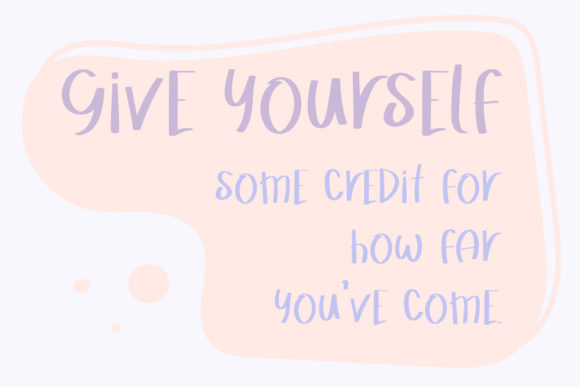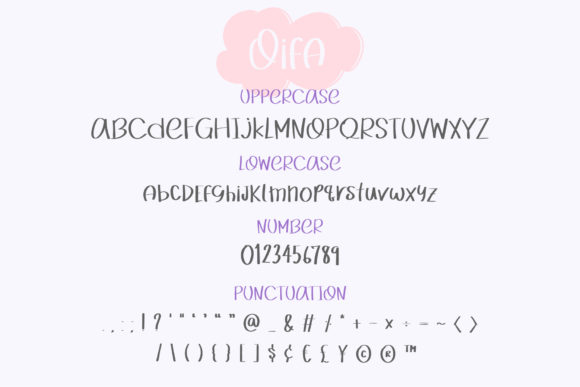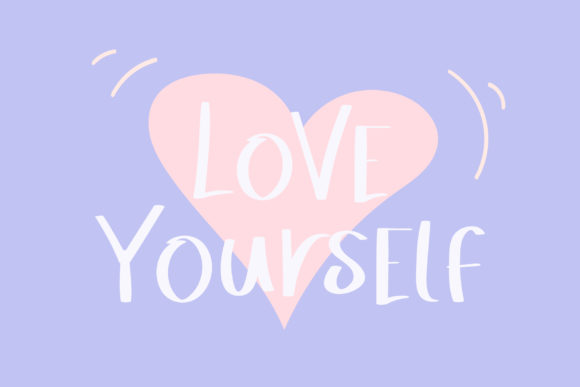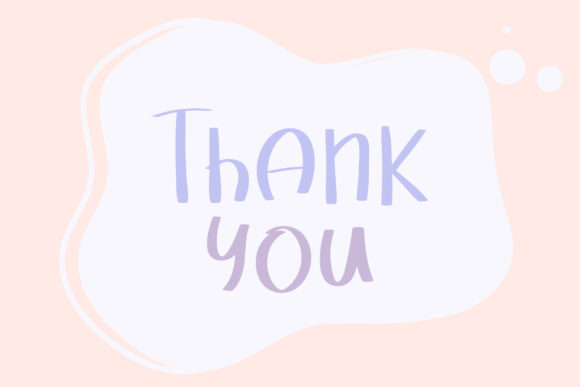
Introduction to Oifa Font
Have you ever found yourself staring at a blank page, waiting for the perfect font to bring your creative project to life? It’s that moment when the right typography can make all the difference. For designers, the search for the perfect font is a never-ending journey, and that’s where the Oifa Font comes in – a cute and quirky handwritten font that’s sure to add a personal touch to any design.
With its relaxed and friendly vibe, the Oifa Font is a valuable addition to any designer’s toolkit. Whether you’re working on a project with a transparent background or need a high-quality font for a free download, the Oifa Font is an excellent choice. Its versatility makes it a great design resource for a wide range of creative projects, from invitations to social media graphics.
- Unique, handcrafted design with intricate details, making it an ideal choice for creative projects that require a touch of elegance.
Honest Review: Oifa Font
I recently had the opportunity to work with the Oifa Font, and I must say it’s been a game-changer for my creative projects. This free download has quickly become a go-to resource for me and my team.
- High quality typography: The Oifa Font offers crisp, clean lines and a range of styles that are perfect for any design project.
- ⚠️ Limited character set: While the font offers a range of styles, the character set is somewhat limited, which can be a drawback for more complex projects.
- ⚠️ Not suitable for all design contexts: The Oifa Font is best suited for digital design projects, and may not be the best choice for print or web design.
Overall, I’m really impressed with the Oifa Font. Its high quality, versatility, and ease of use make it a valuable design resource. While it may have some limitations, I believe it’s a great choice for many creative projects.
The Oifa Font is suitable for a variety of design projects, including business cards, brochures, posters, and social media graphics. Its high-quality features and transparent background make it ideal for creative projects that require a professional touch.
Is the Oifa Font a high-quality font?
Yes, the Oifa Font is a high-quality font designed to meet the needs of designers and artists. It features a unique and elegant design, with a wide range of characters and glyphs. The font is optimized for use in both digital and print materials, ensuring that it looks great in any context.